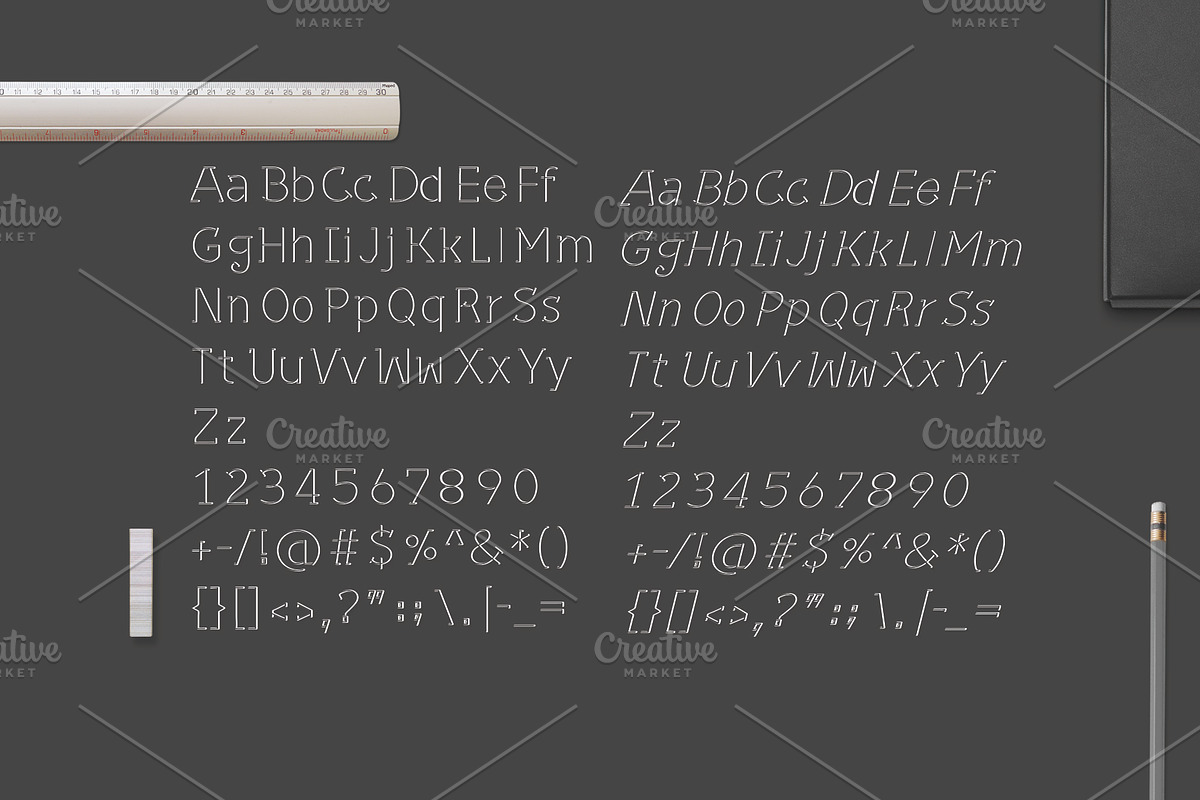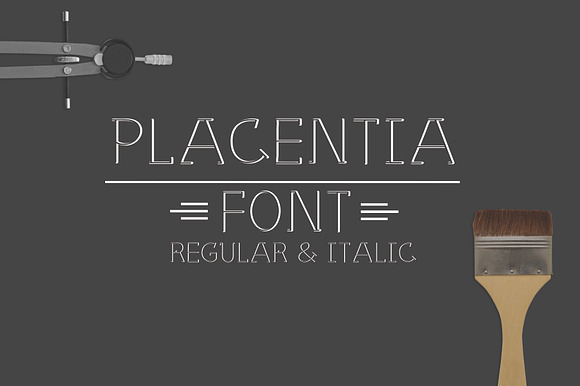
Placentia Font
Placentia Font is bas relief looking style. It 's perfect for formal look cards, posters, wall art, branding, DIY projects, greeting cards, labels, quotes, packaging, websites and much more.
Uppercase and Lowercase
Why Placentia Font is worth a look
Placentia Font by Graphicgo fits naturally into Branding, posters, packaging, typography.